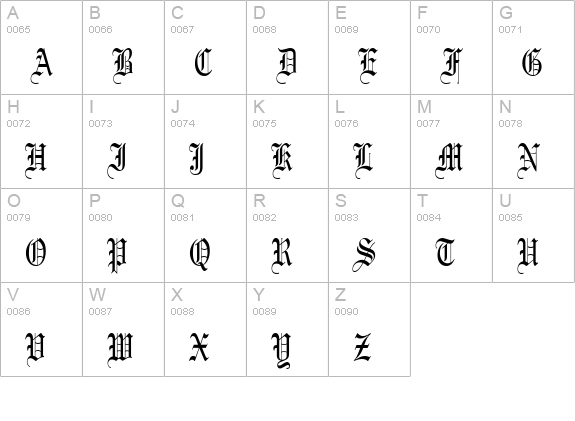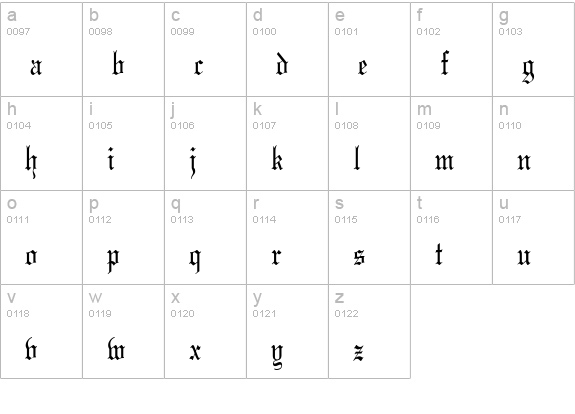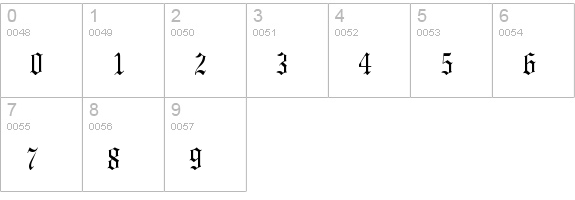
CertificateCondensed Font Details
CertificateCondensed font is a classic and elegant typeface perfect for creating sophisticated and professional designs. With its condensed style and sleek lines, this font exudes a sense of refinement and timelessness. Ideal for certificates, invitations, and formal documents, CertificateCondensed adds a touch of elegance to any project. The best part? CertificateCondensed font is completely free to download at FontsMarket.com. Whether you're a designer looking to add a touch of class to your work or an individual in need of a stylish font for personal projects, CertificateCondensed is the perfect choice. Download it today and elevate your designs with this beautiful and versatile typeface.